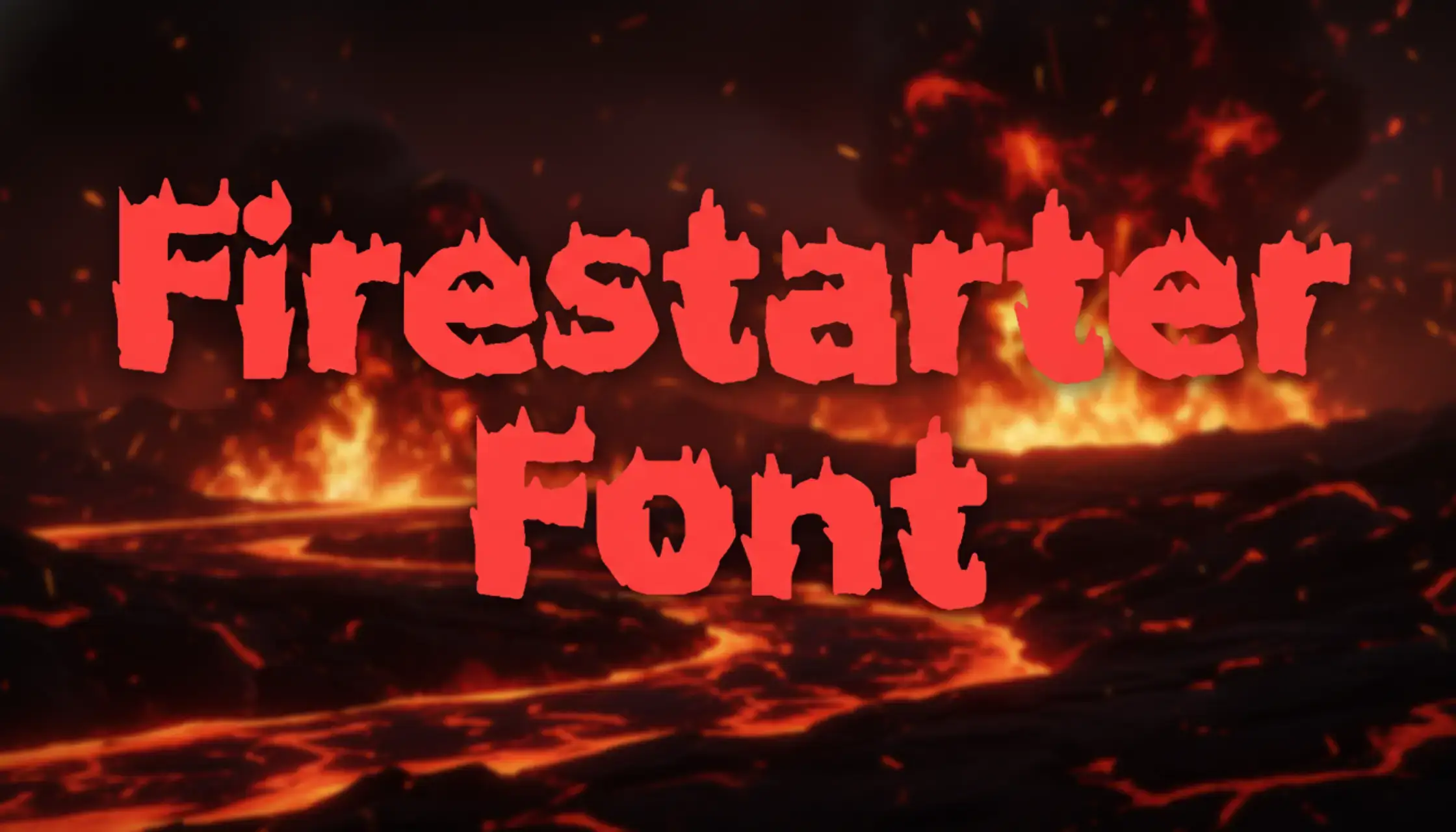
Firestarter Font
Firestarter
Firestarter covers the full alphabet in upper and lowercase, plus all ten numbers, so you can set names, dates and prices without switching fonts. Common punctuation such as &, !, # and $ is included as well. It doesn't include accented letters such as é or ñ, which makes it an English-only font.
Where Firestarter Works Best
Think of Firestarter for posters, logos and eye-catching headlines. Use it for one standout word or headline and let simpler fonts handle the rest.